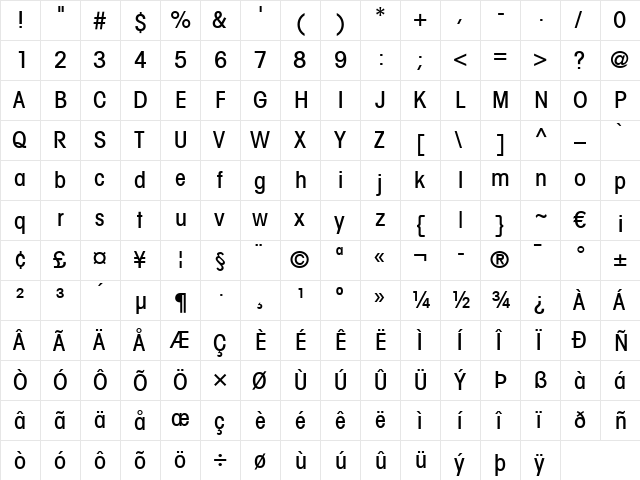
AvantGarde LT CondMedium Regular
Design Context for AvantGarde LT CondMedium Typeface
AvantGarde LT CondMedium is a composed and adaptable typeface that performs quietly and consistently across a wide range of design contexts. The delicate stroke weight brings airiness and refinement to layouts. The condensed width makes it efficient for tight spaces without sacrificing legibility.